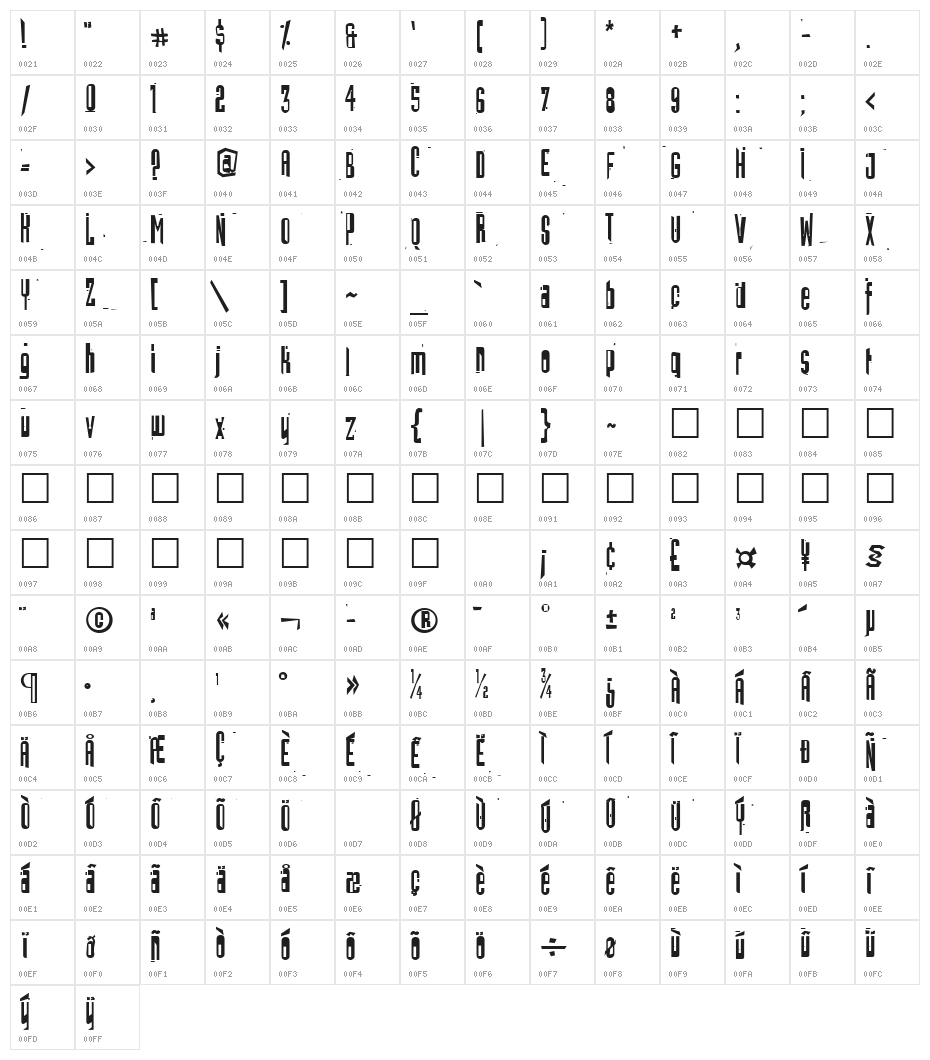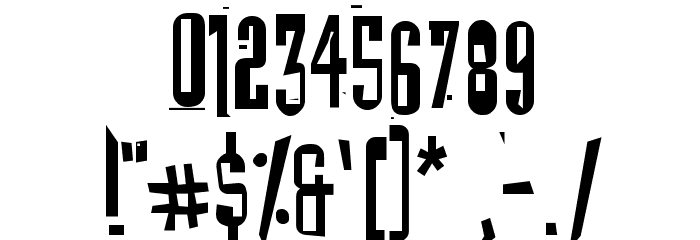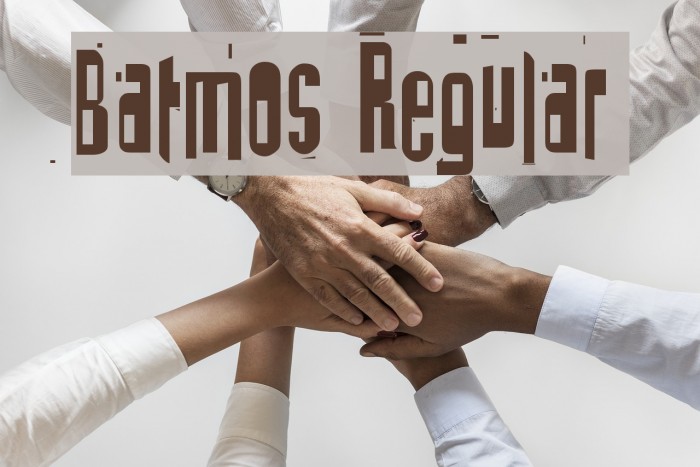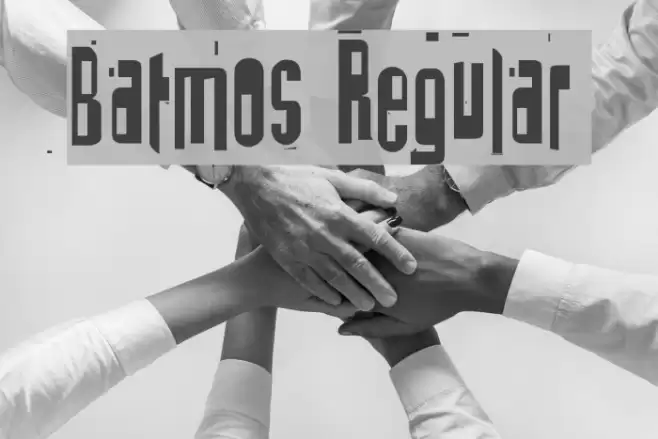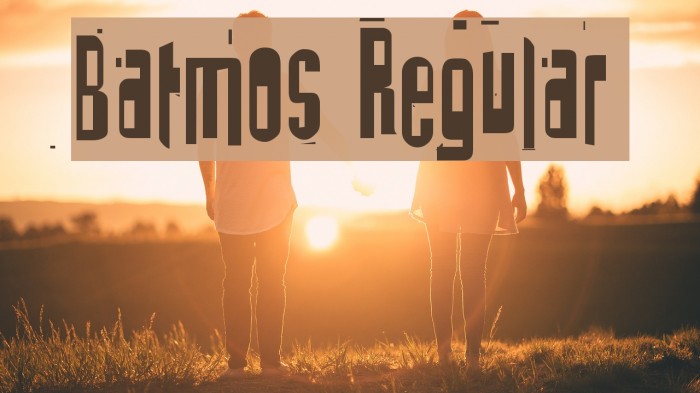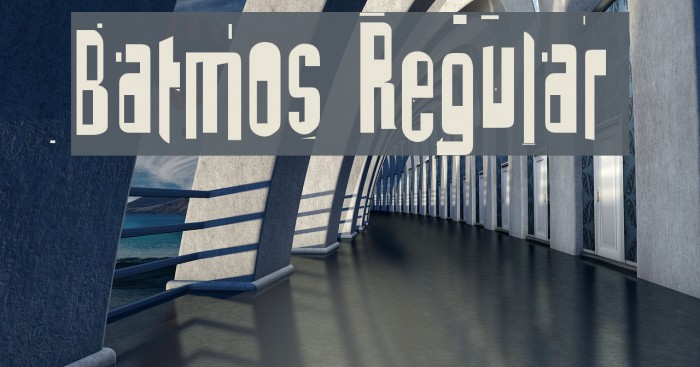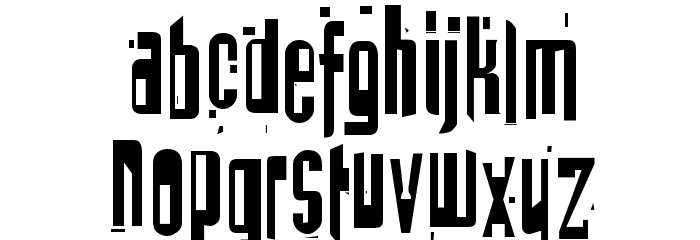
Batmos Regular Font
Batmos Regular Description
This font features a bold and condensed style, characterized by its tall, narrow letters with sharp angles and clean lines. The uppercase and lowercase letters maintain a consistent height, giving it a uniform appearance. The numbers and special characters are designed with the same boldness and angularity, ensuring a cohesive look across all characters. The font's geometric structure and modern aesthetic make it stand out, while its condensed form allows for efficient use of space. The overall design is sleek and contemporary, suitable for making a strong visual impact.